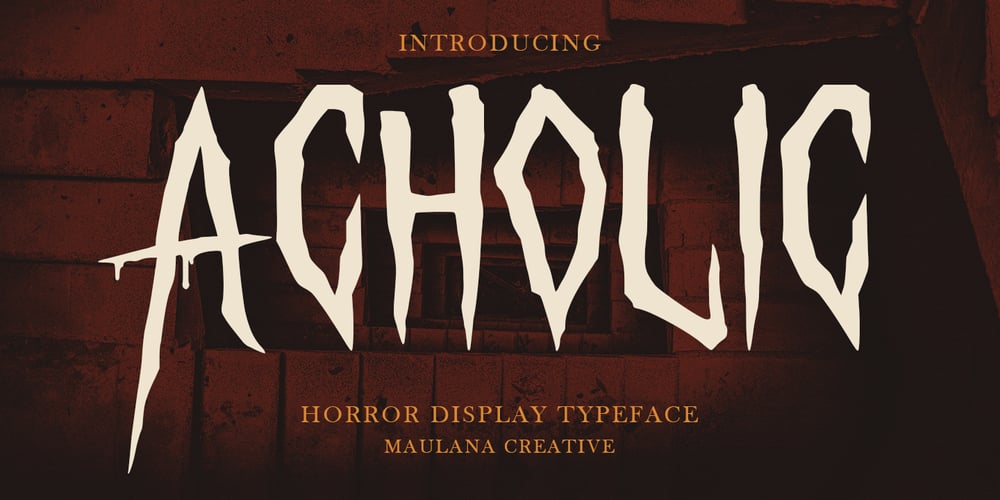
Acholic Font Family was designed by Gilang Maulana and published by Maulana Creative. Acholic contains 1 styles and family package options. Acholic horror display typeface, bold stroke, fun character with a bit of ligatures. To give you an extra creative work. Acholic horror display typeface support multilingual more than 100+ language. This font is good for logo design, Social media, Movie Titles, Books Titles, a short text even a long text letter and good for your secondary text font with script or serif. Make a stunning work with Acholic horror display typeface. Cheers, Maulana Creative